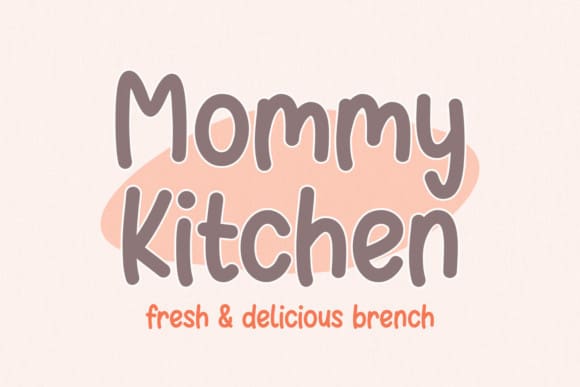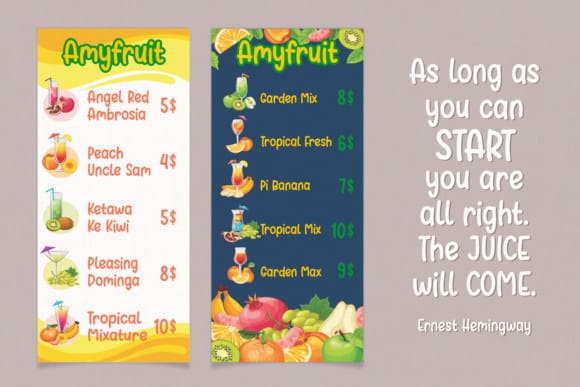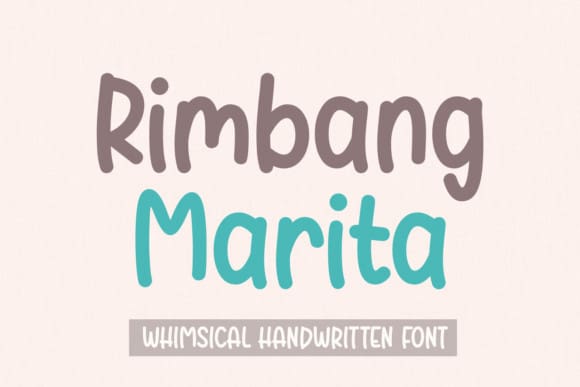
Rimbang Marita Font
Rimbang Marita Font is a playful and bouncy handwritten font that will impress you with its versatility! It works great on children-related designs, headlines, magazines, social media posts, advertising materials, websites, and many others.